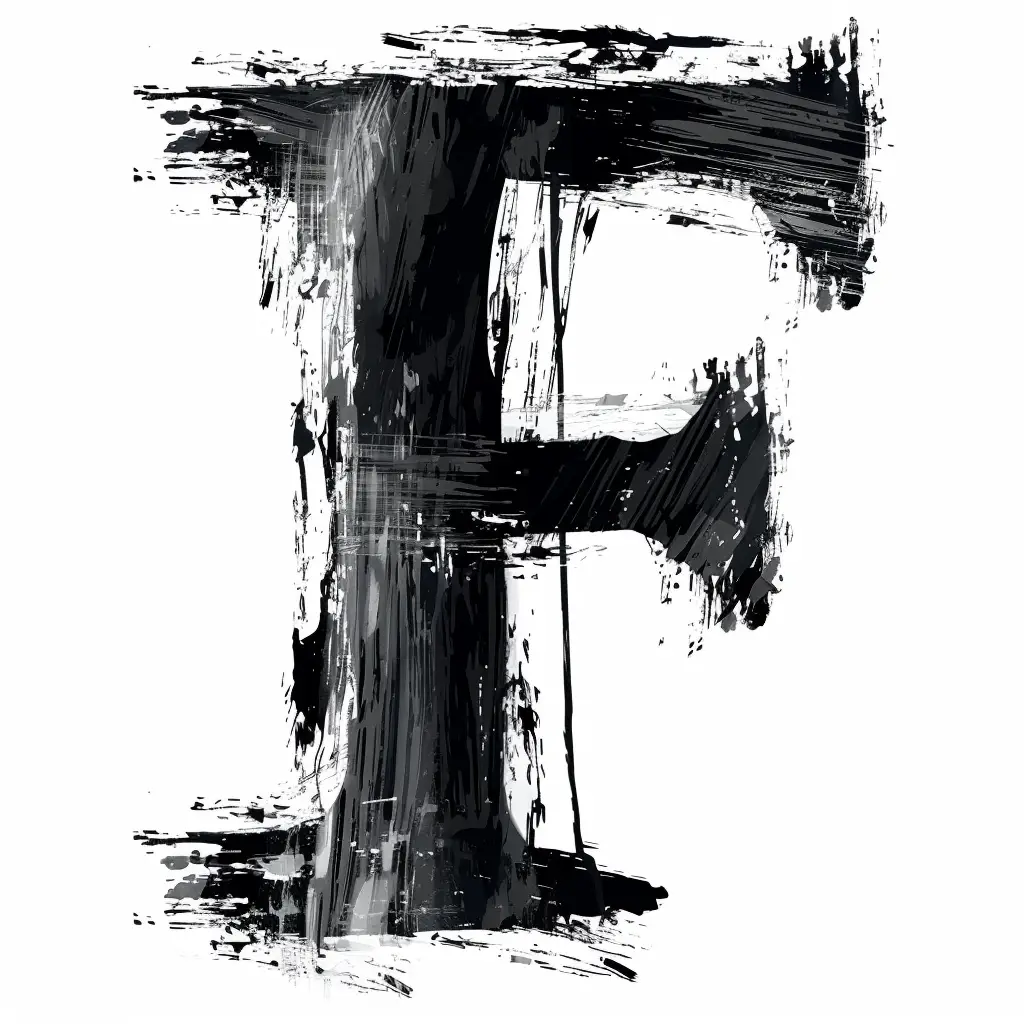
The image features a stylized letter "F" rendered in a rough, brushstroke-like artistic style. It uses a monochromatic palette of black and white, with textured, uneven strokes creating a dynamic, grungy appearance. The letter’s form is defined by bold, overlapping lines and splatters, giving it a raw, expressive visual impact.